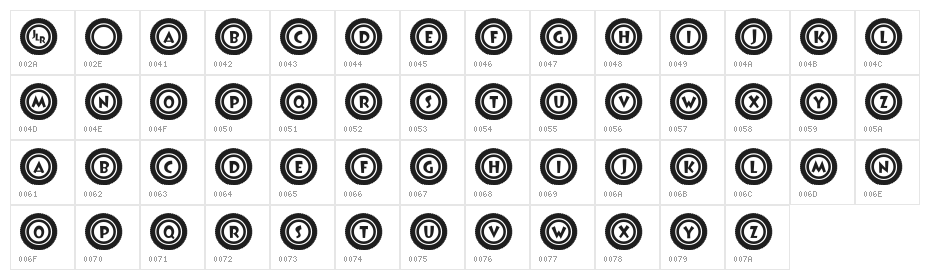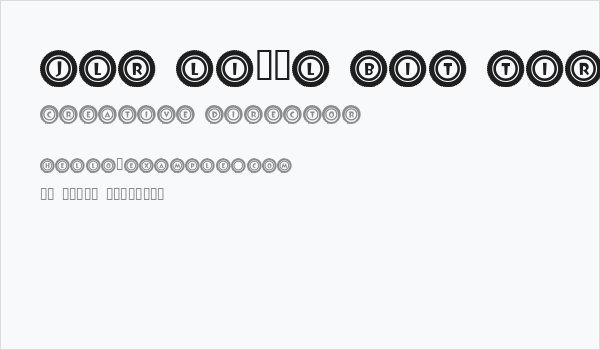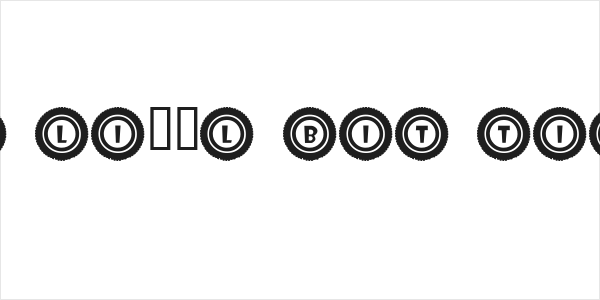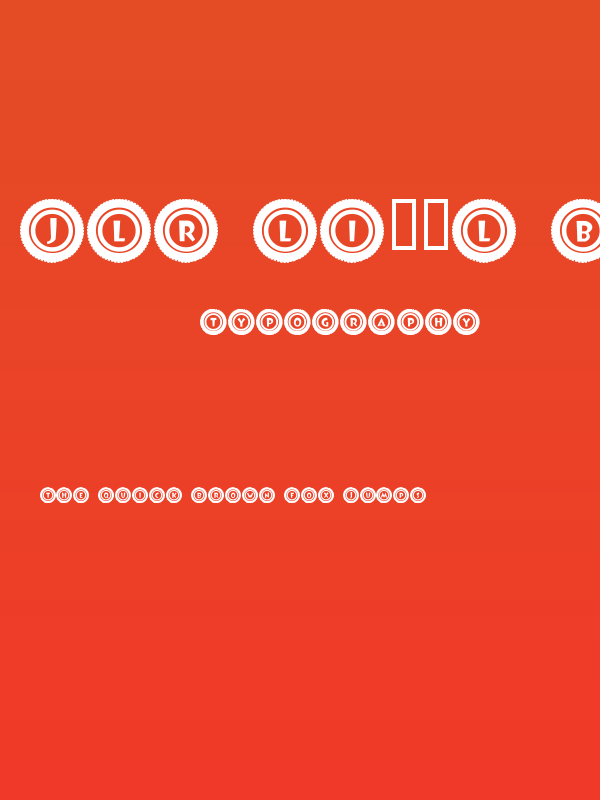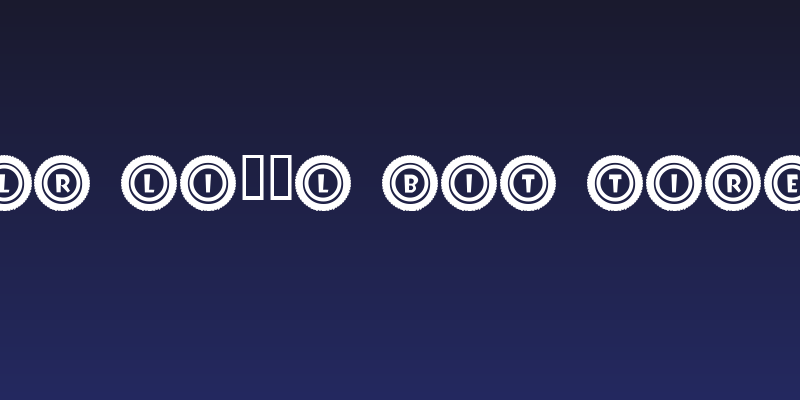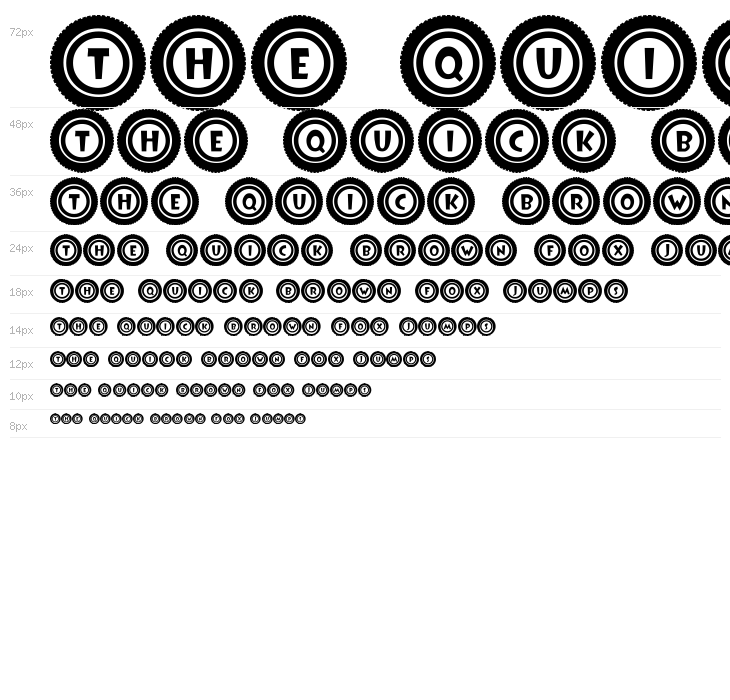
JLR Li'l Bit Tires Font
JLR Li'l Bit Tires Description
This font features a unique design where each character is enclosed within a circular shape resembling a tire. The letters are bold and capitalized, with a modern and playful aesthetic. The circular enclosures add a decorative element, making the font stand out for creative and thematic projects. The consistent use of circles gives it a cohesive look, ideal for branding or designs related to automotive themes. The boldness of the letters ensures readability while maintaining a stylish appearance.
| Use Case | Logos, Headlines |
| Proposed Projects | Ideal for automotive branding, themed event posters, or playful design projects. |